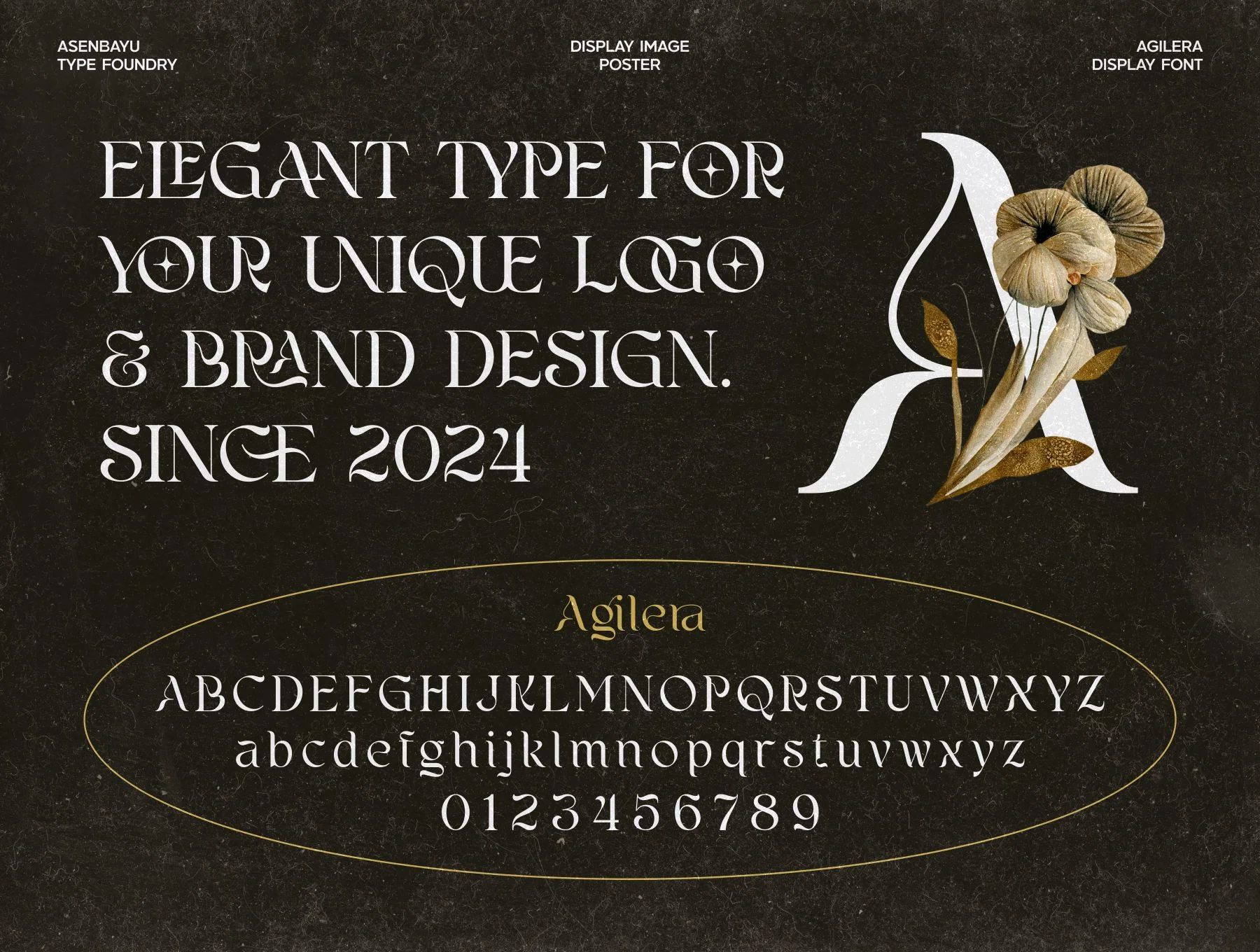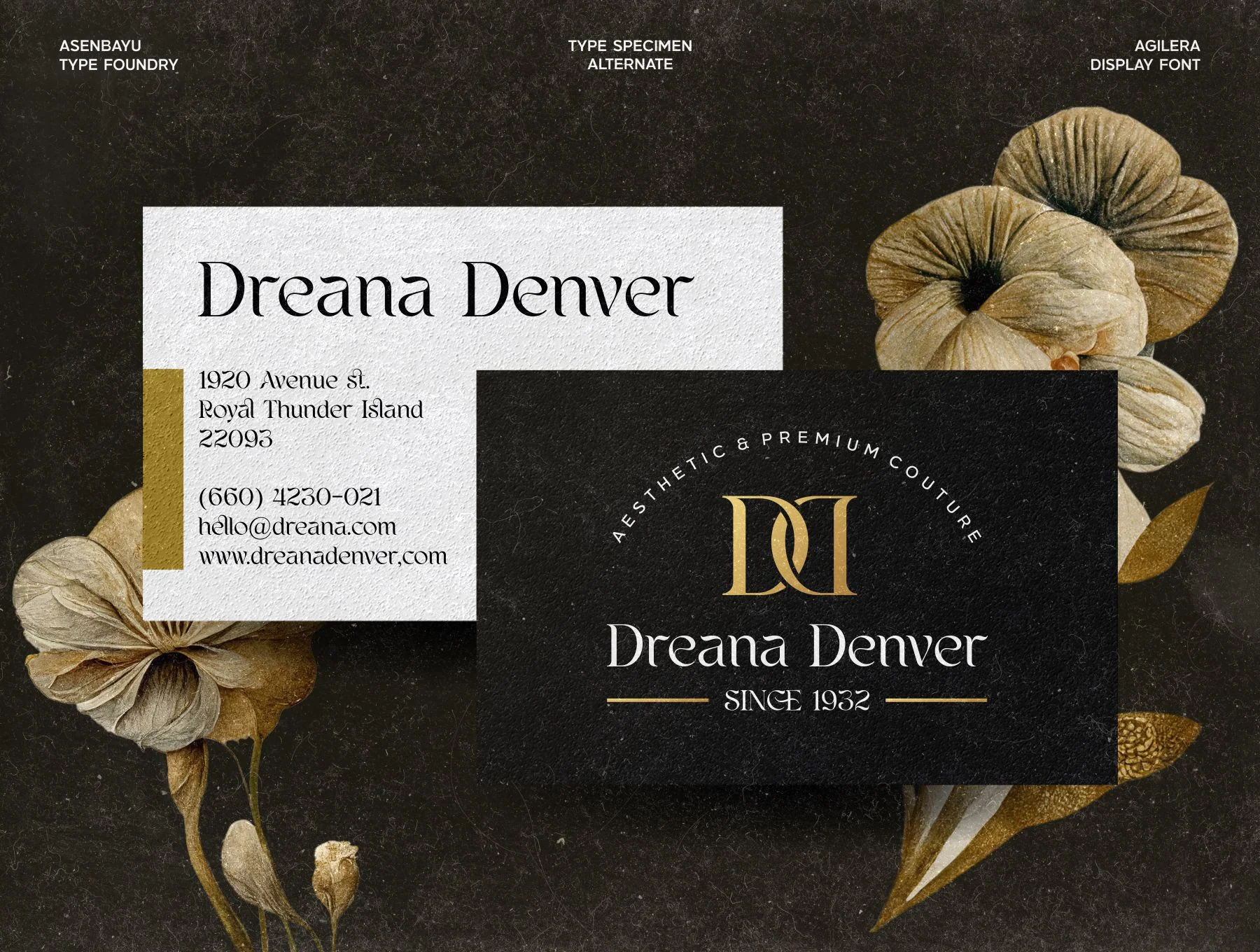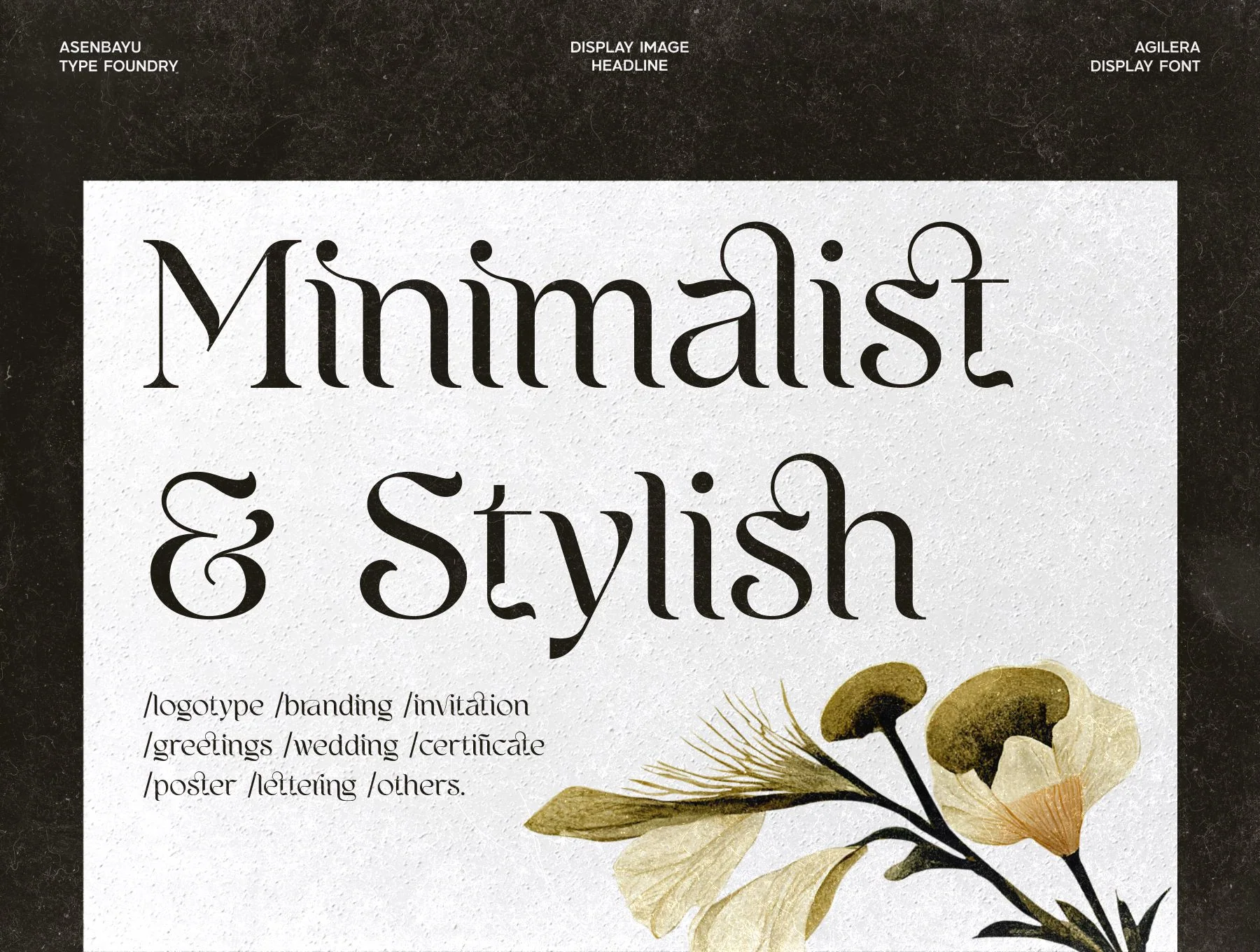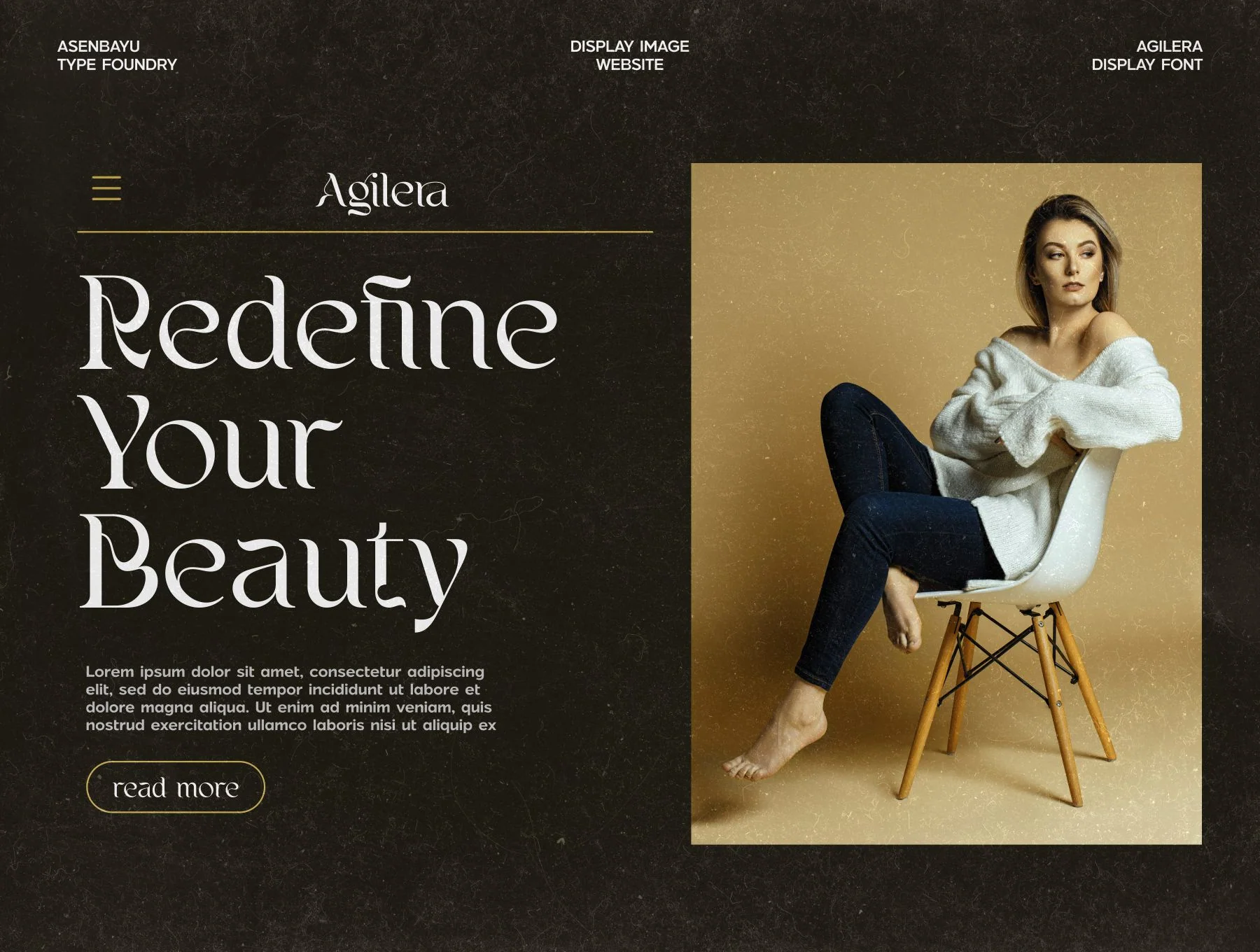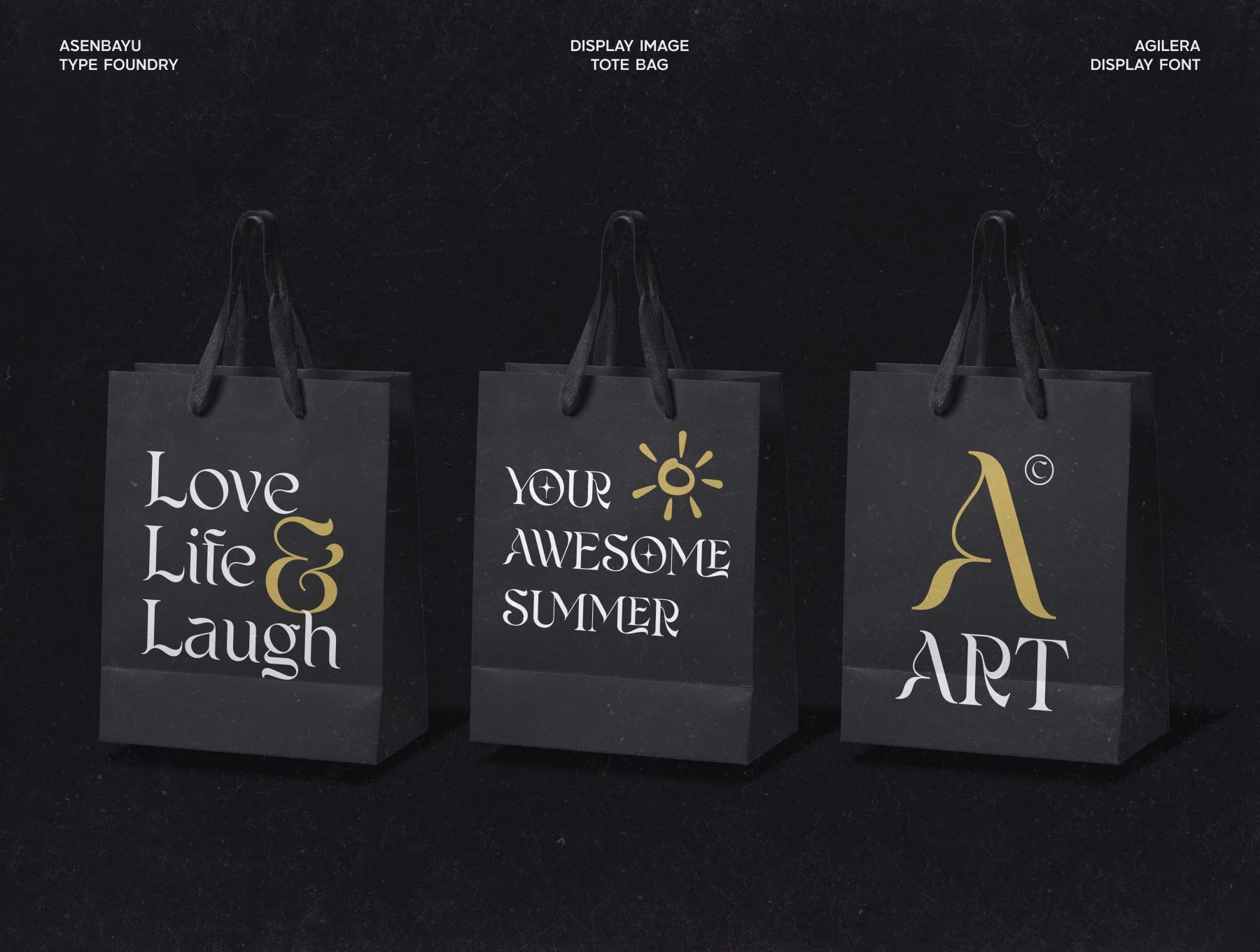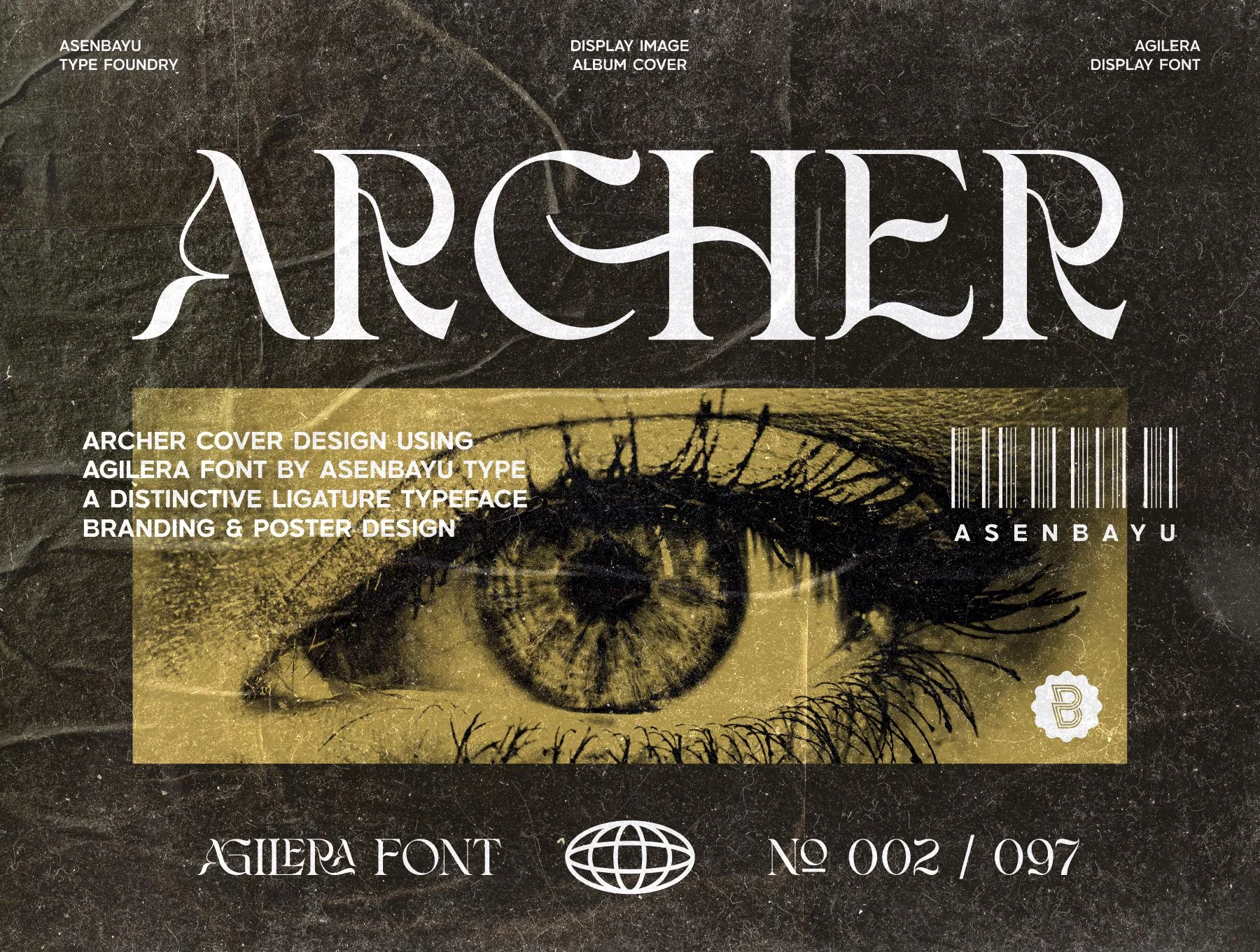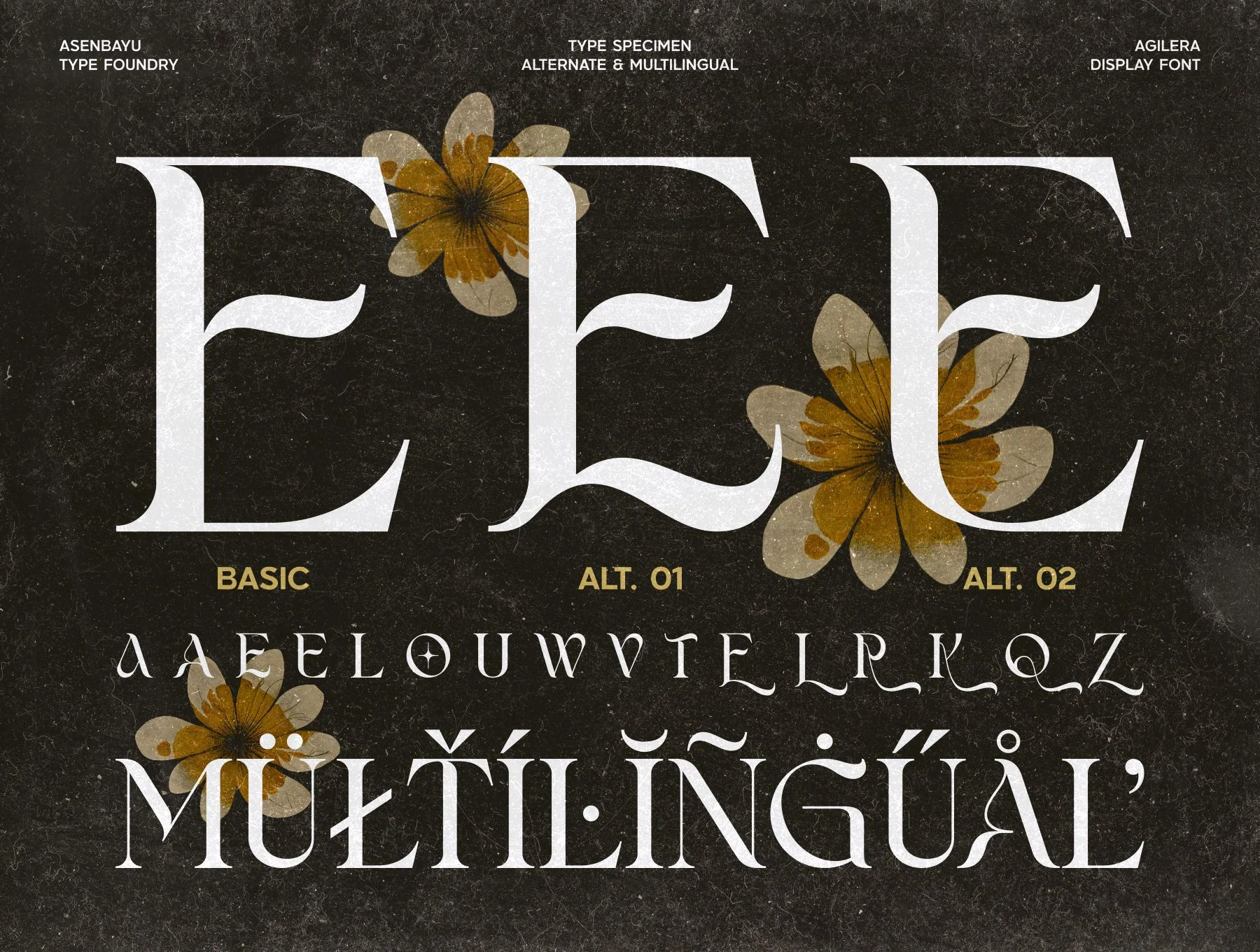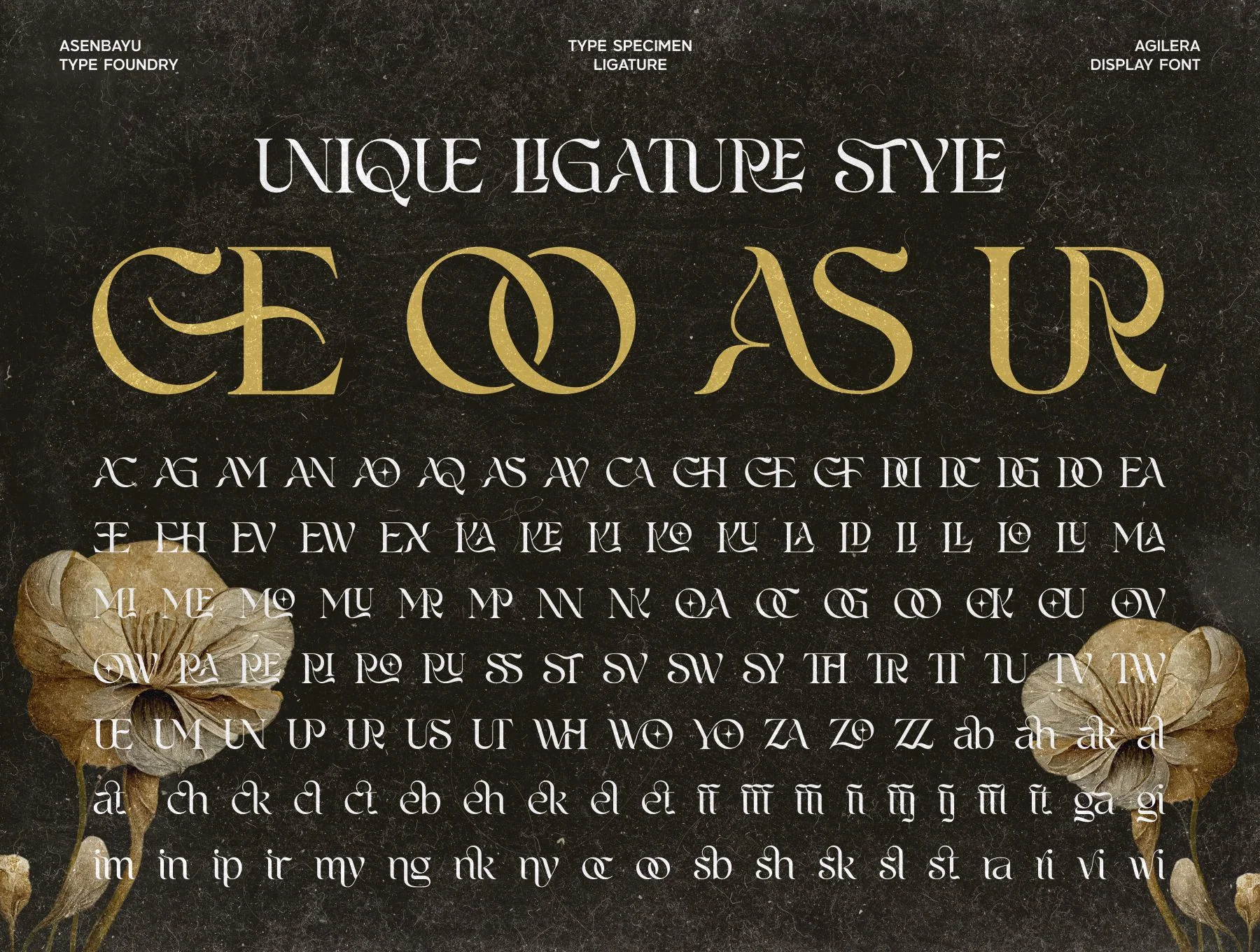
Agilera Font
Chic Ligature Font for Branding
Ligatures and stylistic alternatives
Agilera is a refined ligature typeface with a distinctive look. Inspired by Art Nouveau, it features graceful natural curves and fluid strokes. Strong thick-to-thin contrast creates bold impact while keeping a clean, fashionable feel. Ideal for modern packaging, labels, standout logos, branding, posters, fashion projects, and more.